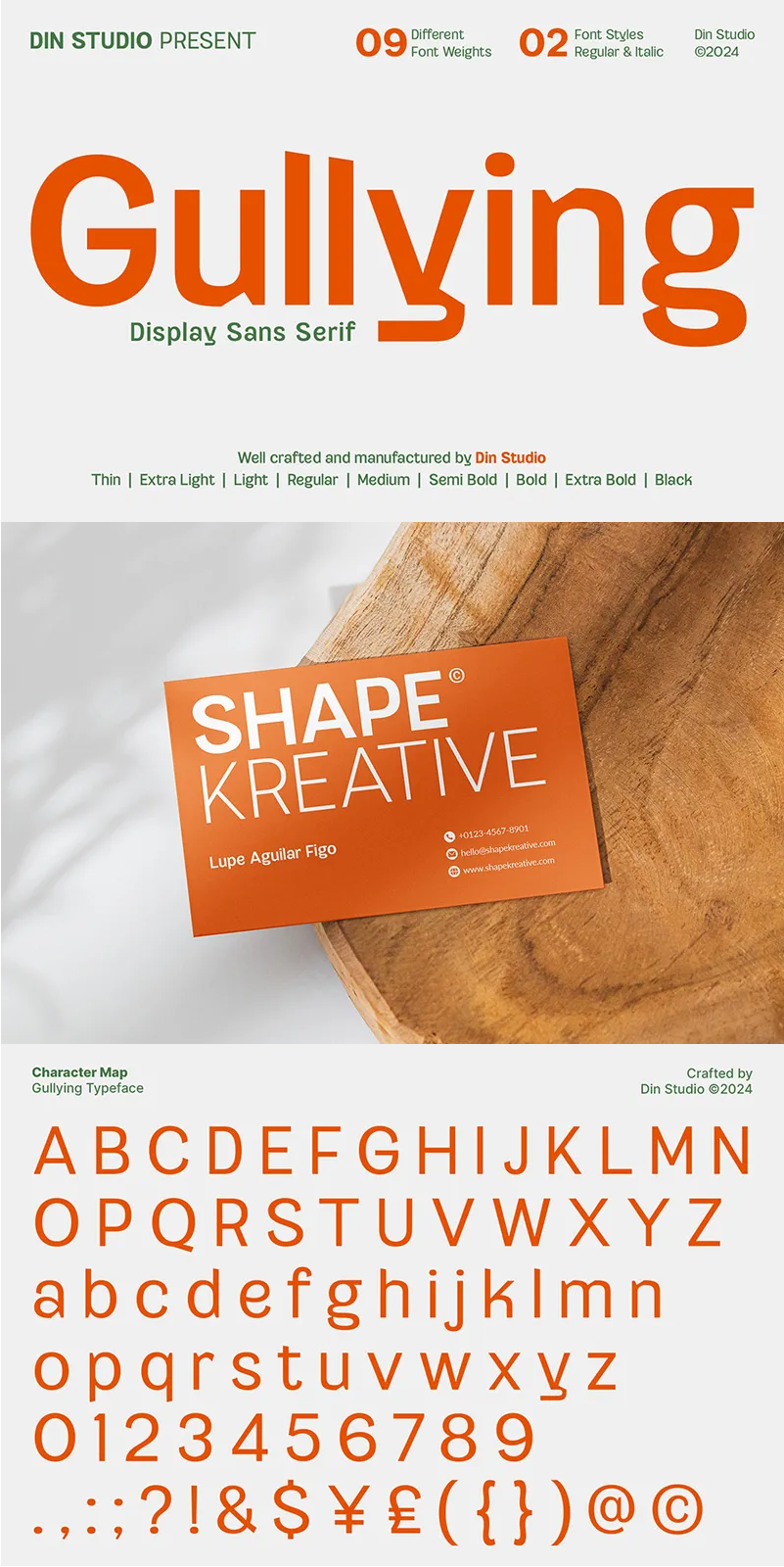
Gullying Font
About Gullying
Meet Gullying, a refined sans serif display font family that redefines simplicity and modernity. Designed with 9 versatile weights in both regular and italic styles, Gullying offers a seamless balance of clarity and sophistication. Its clean lines and contemporary shapes are ideal for minimalist designs. Gullying’s adaptability ensures your projects exude a polished, modern aesthetic, capturing attention with its effortless elegance and functional design.
Gullying’s different weight fonts :
- Thin (Regular/Italic)
- Extra Light (Regular/Italic)
- Light (Regular/Italic)
- Regular (Regular/Italic)
- Medium (Regular/Italic)
- Semi Bold (Regular/Italic)
- Bold (Regular/Italic)
- Extra Bold (Regular/Italic)
- Black (Regular/Italic)
Gullying fits in headlines, logos, posters, invitation, branding materials, packaging, print media, editorial layouts, and many more designs. Find out more ways to use this font by taking a look at the font preview.